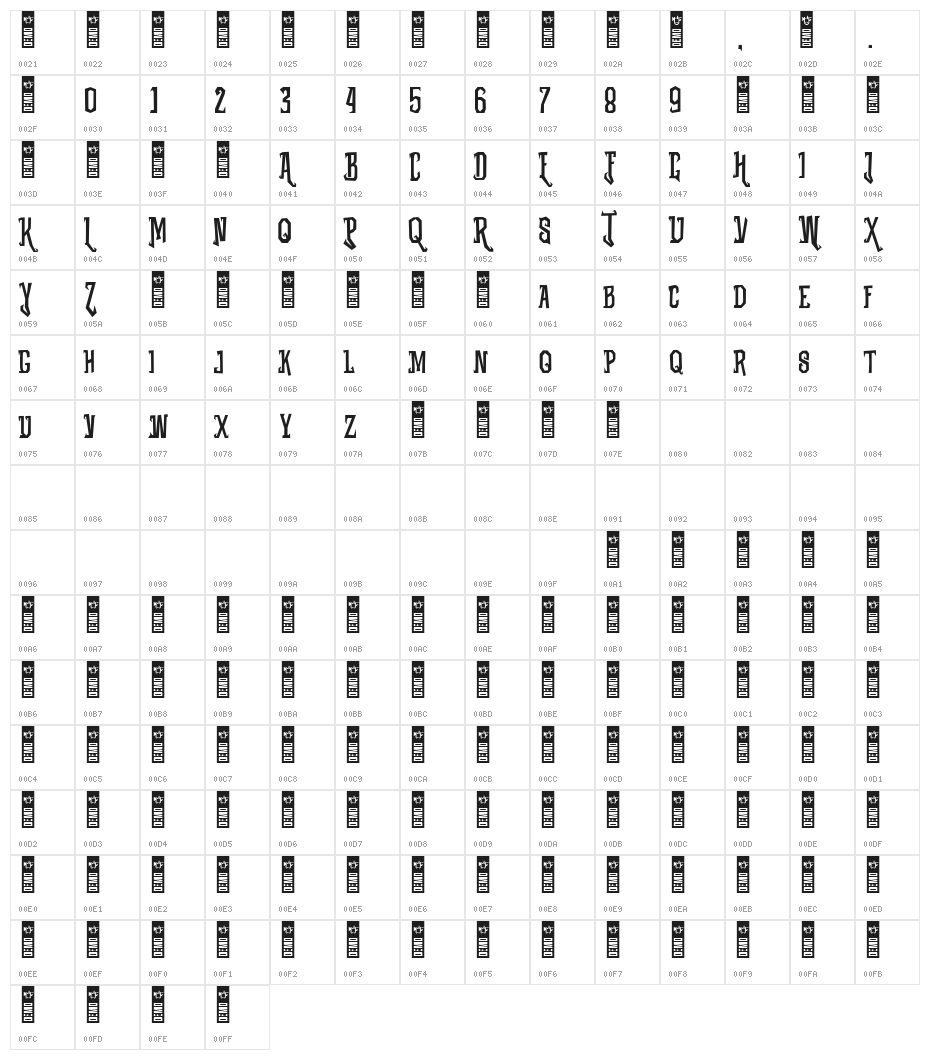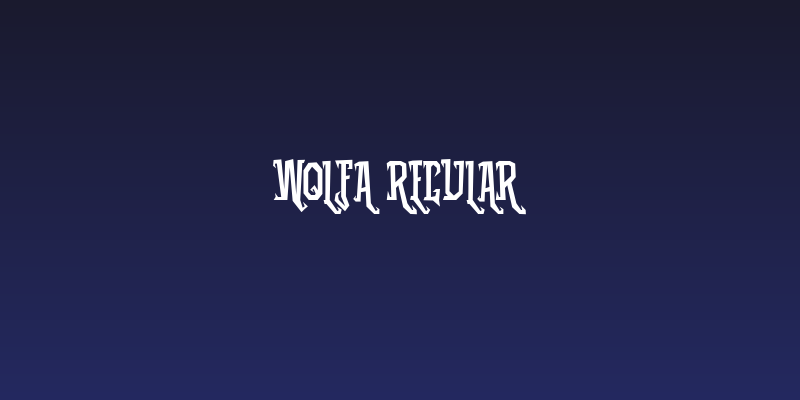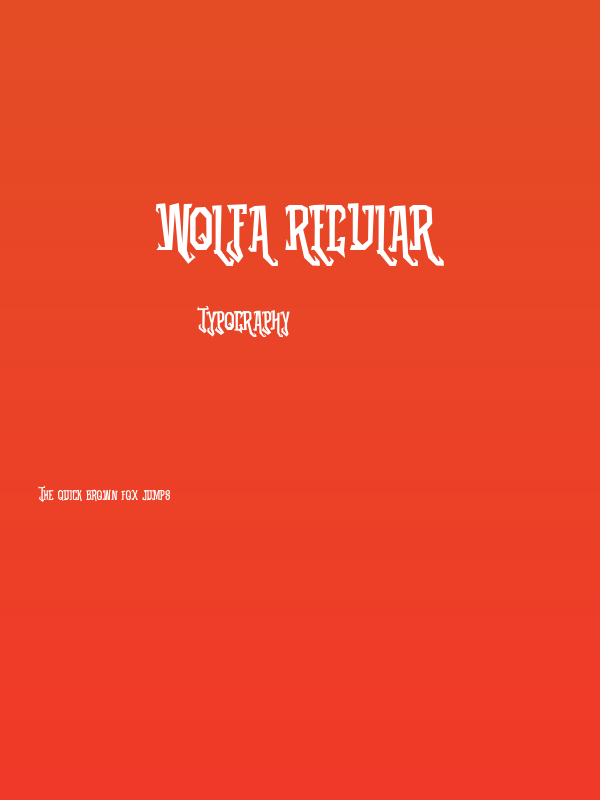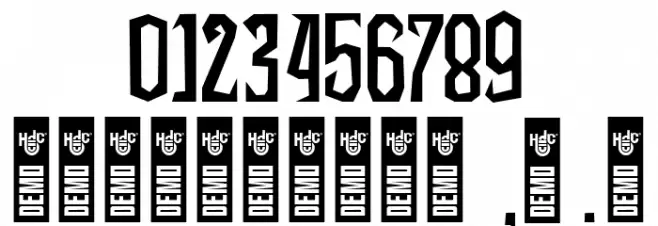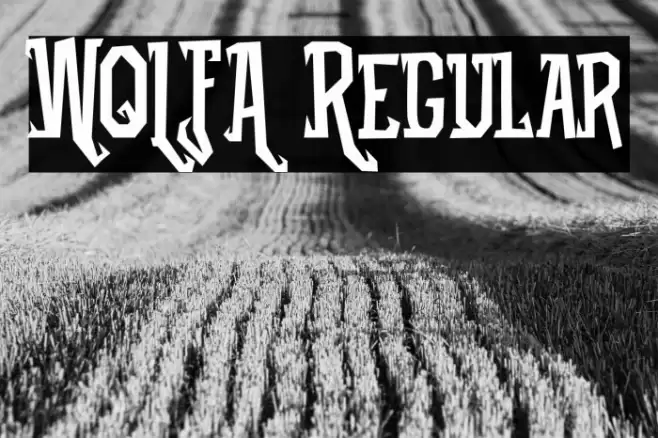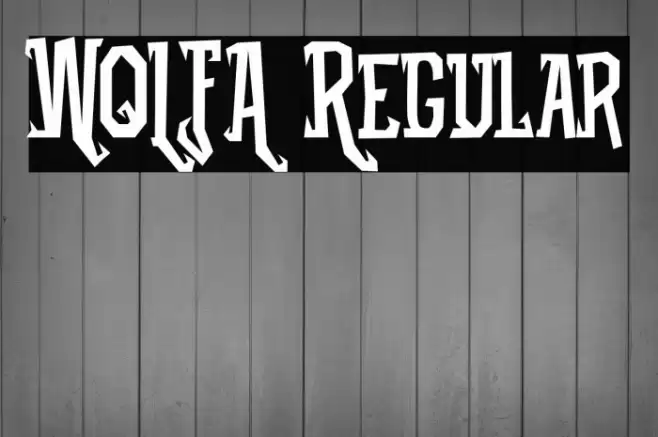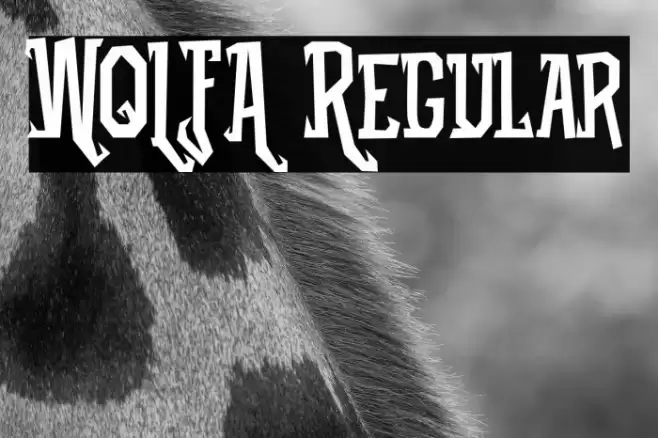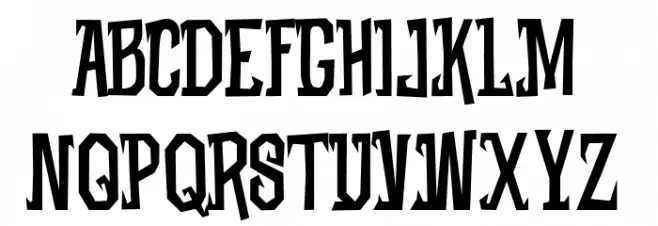
WOLFA Regular Font
WOLFA Regular Description
This font features a bold and striking design with sharp, angular lines and a gothic influence. The uppercase letters are particularly prominent, with exaggerated serifs and a strong vertical emphasis. The lowercase letters maintain the same boldness, ensuring consistency throughout. Numbers and special characters are designed to match the overall aesthetic, making them suitable for attention-grabbing headlines or logos. The font's unique style is both decorative and impactful, ideal for projects that require a strong visual presence.
| Overall Style | Gothic, Decorative |
| Proposed Projects | Ideal for branding, posters, album covers, and any project needing a bold, gothic aesthetic. |